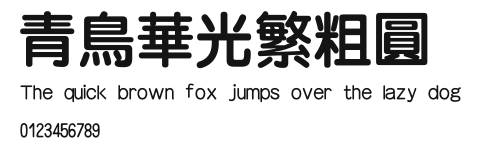
青鸟华光繁粗圆 Preview
• Font Name: 青鸟华光繁粗圆
• Full Font Name: 青鸟华光繁粗圆
About 青鸟华光繁粗圆.TTF
青鸟华光繁粗圆.TTF is a modern, elegant sans-serif font designed for ultimate readability and visual harmony. Perfect for branding, headlines, web design, and print materials.